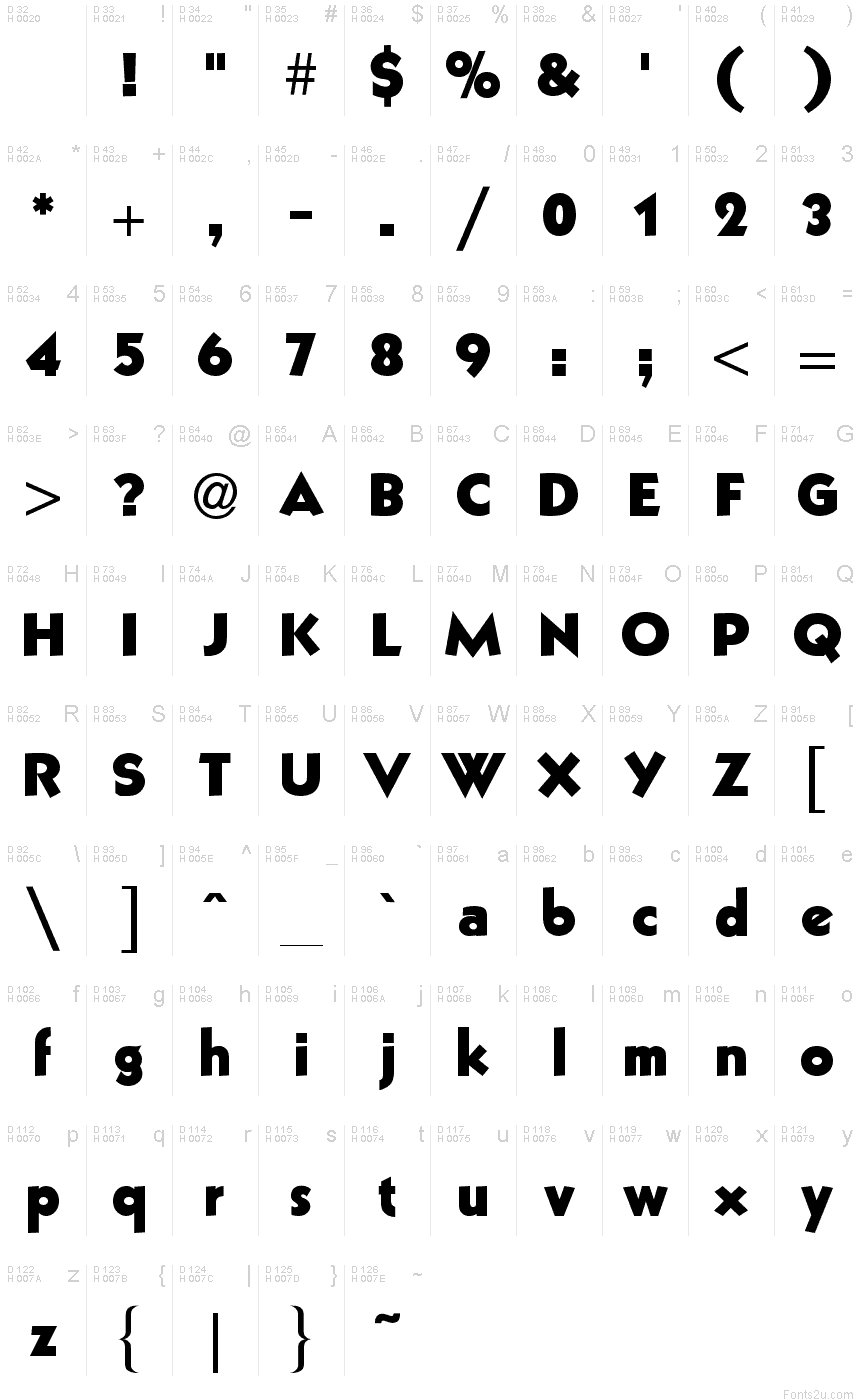
Bear
Bear font is a free sans serif font with a gorgeously chunky, soft-edged build that feels both bold and approachable. Its thick strokes and rounded curves give every word a padded, almost huggable weight, while the tight shaping keeps it from feeling clumsy. The result is a typeface that grabs attention like a headline, but speaks in a friendly, down-to-earth voice instead of shouting.
Using Bear, you get letterforms that land with impact on posters, product packaging, kids’ branding, social graphics, bold logos, and event flyers. The sturdy texture reads clearly even at a distance, making this free font shine on large titles and wordmarks. For body copy, pair Bear with a clean, light-weight sans serif and let Bear handle the big, loud moments at larger sizes.